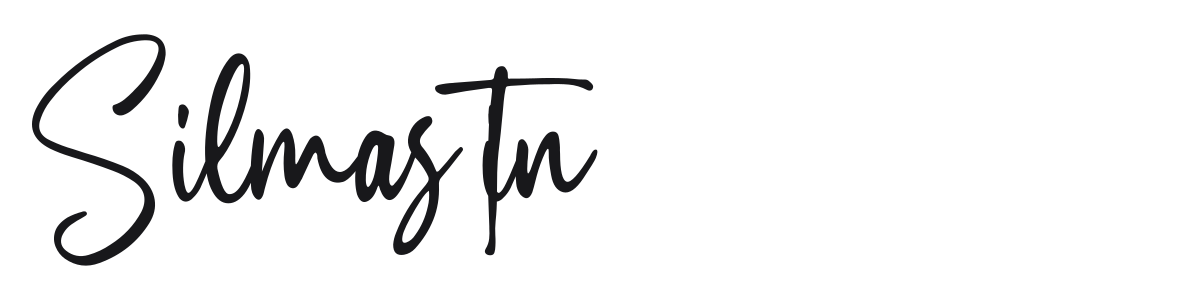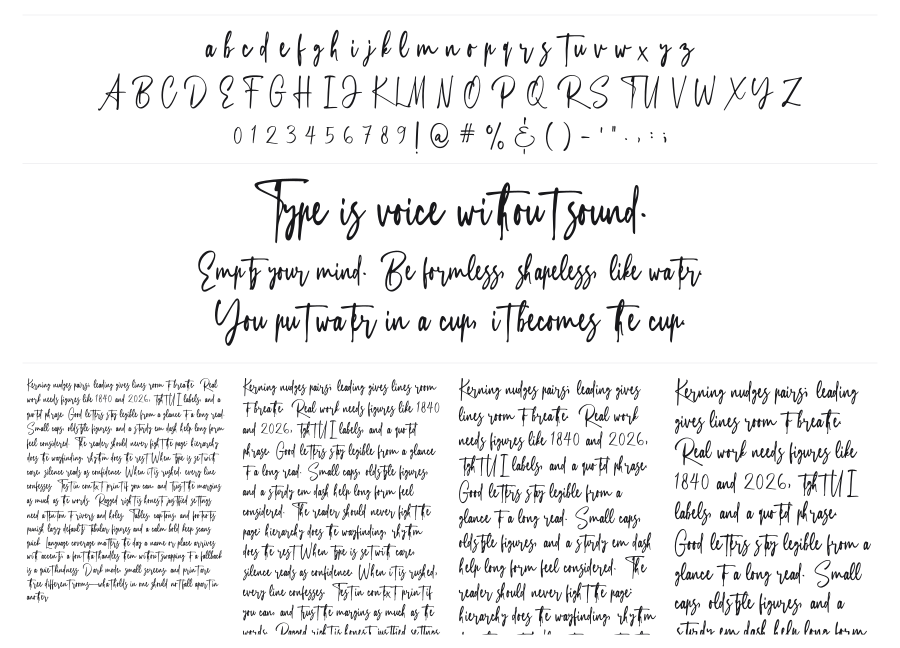
Silmastin
Silmastin is a casual handwritten script drawn with a natural pen, giving it the kind of genuine ink variation that digital scripts often fake. The connected letters flow with a relaxed energy that feels personal without being sloppy. It suits branding, wedding stationery, quotes, and any project that needs a warm, human touch.